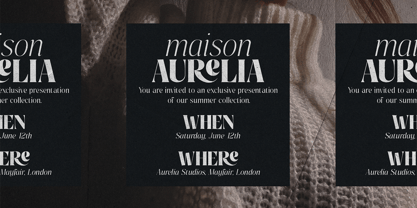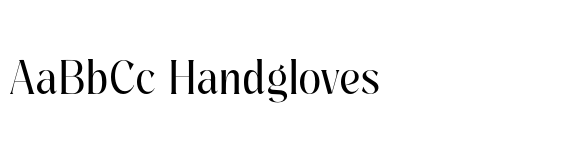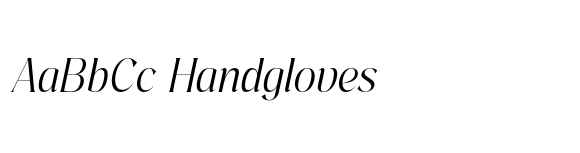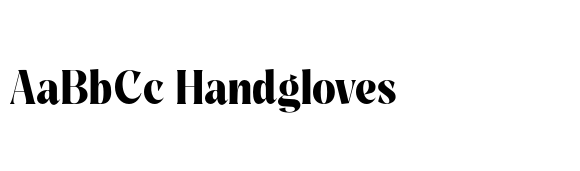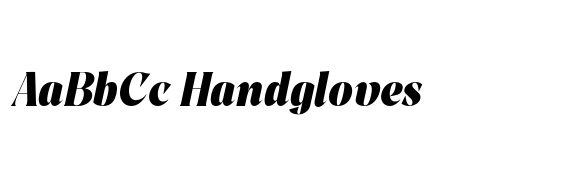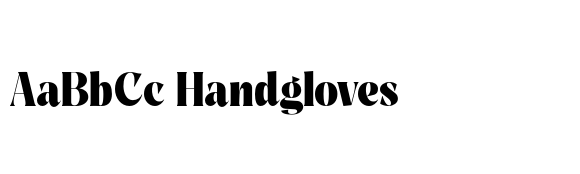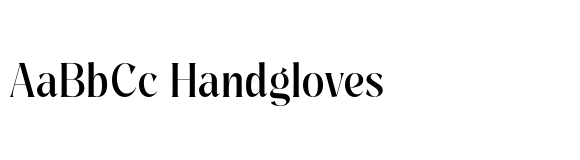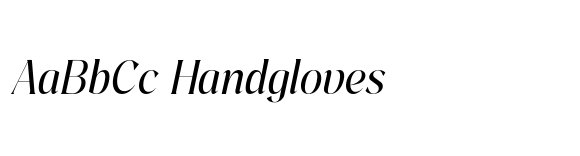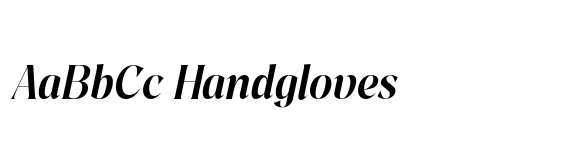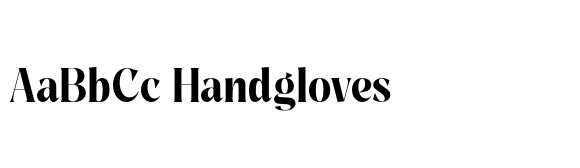
Pure Motif
The Pure Motif Font Family was designed by Vladimir Fedotov, Plamen Petrov and published by VP Creative Shop. Pure Motif contains 18 styles and family package options. More about this family
Pure Motif is a refined serif family that blends classic craftsmanship with contemporary artistry - designed for creators who crave sophistication, emotional impact, and timeless beauty in every letterform. Born from graceful contrasts, fluid curves, and sculpted terminals, Pure Motif elevates even the simplest word into a visual statement. Its voice is elegant yet daring, soft yet authoritative - making it the perfect typographic companion for premium brands, editorial storytelling, high-end packaging, and expressive lifestyle design. From delicate thin cuts to confident bold weights, Pure Motif’s versatility allows it to shift effortlessly between romantic, modern, luxurious, artisanal, editorial, and fashion-forward aesthetics.